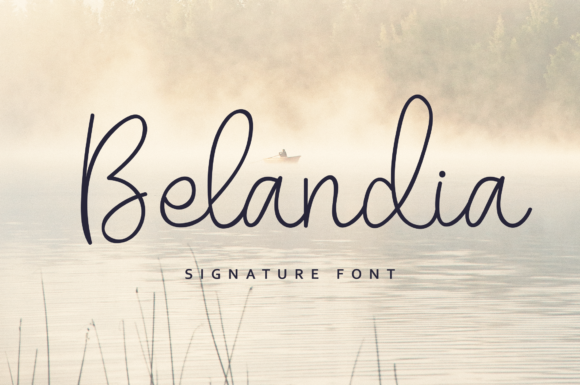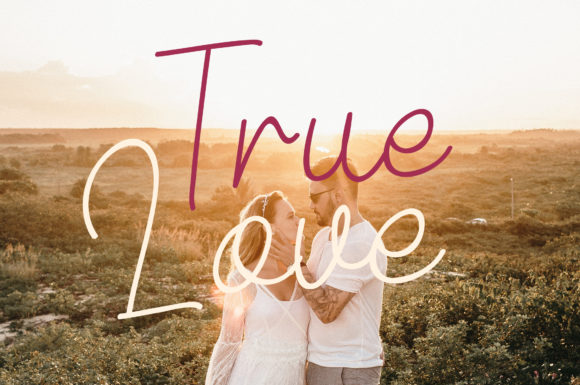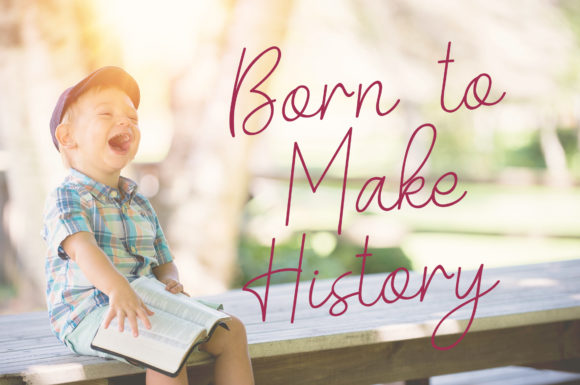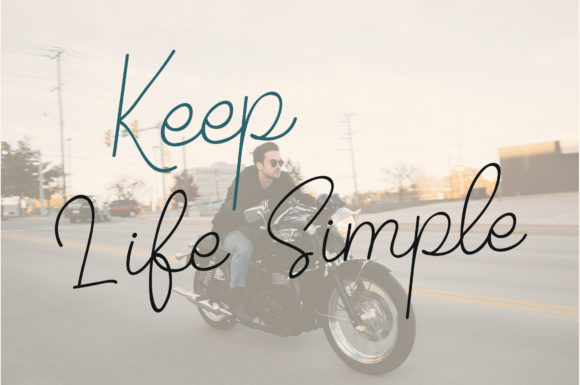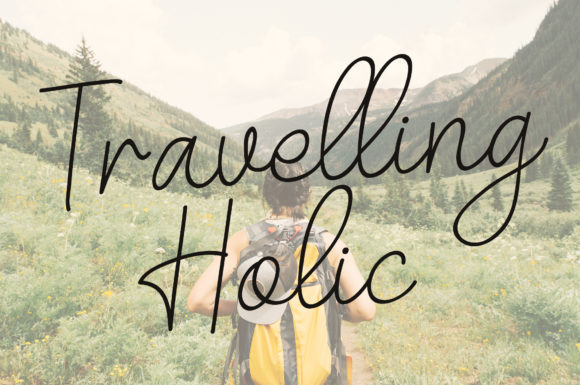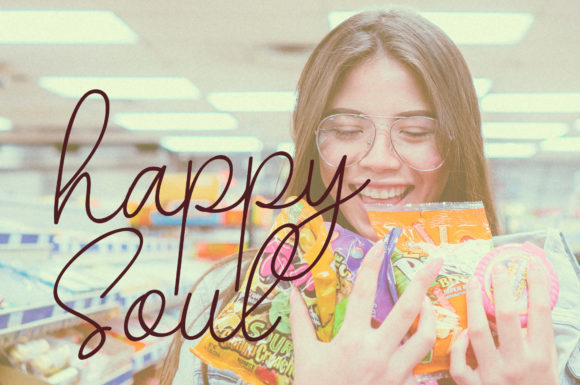
HomeScript FontsBelandia Font Script Fonts Belandia Font FacebookXPinterestWhatsApp Belandia Font Poster 2 Belandia Font Poster 3 Belandia Font Poster 4 Belandia Font Poster 5 Belandia Font Poster 6 About Belandia Font Belandia is a stunning handwritten font with a light and casual vibe. Get inspired by its authentic style. DOWNLOAD ON CREATIVE FABRICAThis font is sold and delivered by Creative Fabrica. Font Canyon may earn a commission if you buy through this link. People also explored Florence Edith Font Lustra Text Blue Sea Font Batista script Bourista Font Stobils Font Angeltown Font Mandala Creator Font Clark & Lou Font 402 0 TagsBelandia Font Previous articleAsmelina Harley FontNext articleSpeed Line Font LEAVE A REPLY Cancel reply Comment: Please enter your comment! Name:* Please enter your name here Email:* You have entered an incorrect email address! Please enter your email address here Website: Save my name, email, and website in this browser for the next time I comment. Personal Use Free Fuixg Personal Use Free Read more about this font Single Sleeve Personal Use Free Read more about this font Silver Bullet Personal Use Free Read more about this font Baby Magnolia Personal Use Free Read more about this font BLOG The 10 Best Handwriting Fonts to Add Personality to Your Designs 10 of the Best Handwriting Fonts for Adding Personality to Your Designs There will undoubtedly be no other better choice than handwriting fonts to give... Top 7 Google Fonts Alternatives for Faster and Privacy-Friendly Web Design (2025) Transform Your Website: Elevate Your Typography with 7 Best Web Font Generators How to Cut Any Font on Cricut: Convert a Font to SVG (Free)